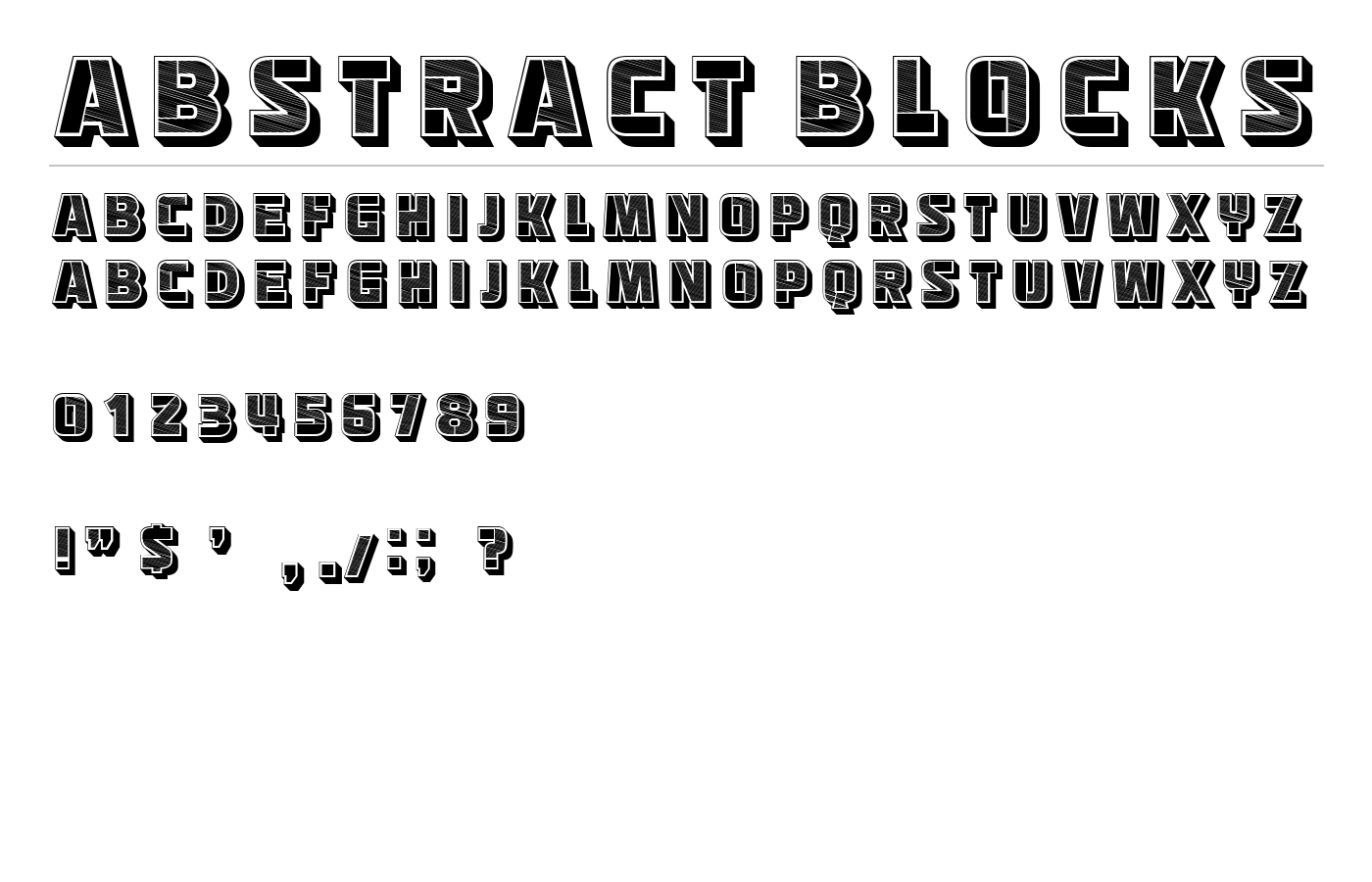
Abstract Blocks is a bold, all-uppercase sans serif font featuring three-dimensional block shapes and diagonal hatch shading that create a striking, retro-inspired look. Its strong weight, geometric structure, and decorative depth make it perfect for eye-catching headlines, logos, and posters that need a playful yet impactful style. This font works well in display settings where a vintage or industrial character adds personality and visual interest.
Abstract Blocks Font
About Abstract Blocks Font
| Font family | Abstract Blocks Font |